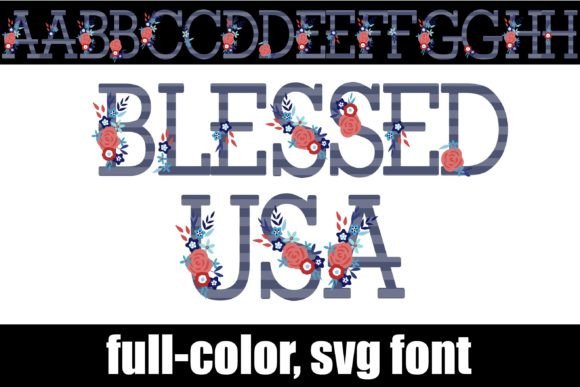
Introducing the **Blessed Usa Font**, a font family that embodies the patriotic spirit of the 4th of July! This full-color OpenType (SVG) font captivates with its striking striped serif lettering, adorned with vibrant red, white, and blue florals on each character. Unleash your creativity and make a bold statement with this unique font, perfect for adding a touch of Americana to your designs.
With the **Blessed Usa Font**, you'll have the power to transform your projects into eye-catching masterpieces. Its vibrant colors and intricate details will leave a lasting impression on your audience, whether you're designing invitations, greeting cards, social media posts, or any other creative project.
Beyond its aesthetic appeal, the **Blessed Usa Font** is also incredibly versatile, lending itself to a wide range of applications. From personal projects to professional designs, this font is guaranteed to elevate your work to new heights. And with its easy installation process, you'll be up and running in no time.